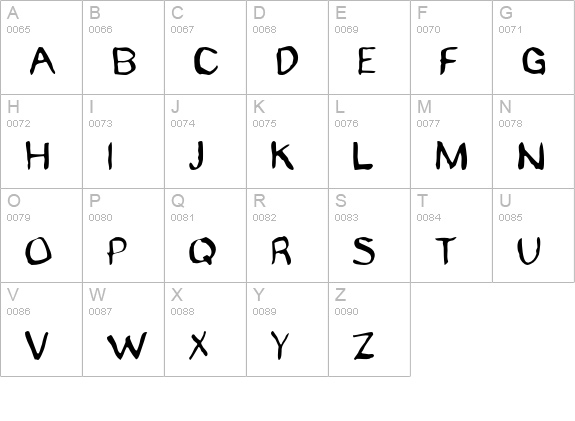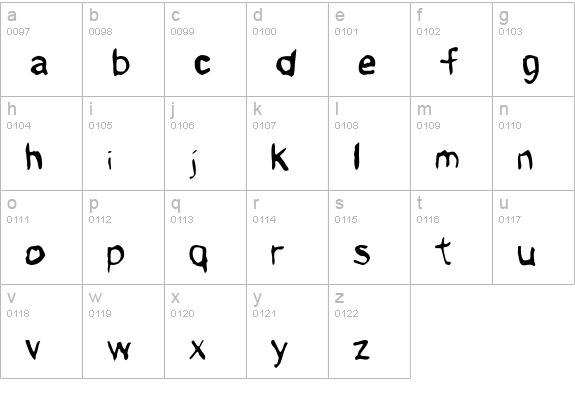
Gritzpop Font Details
Introducing Gritzpop font, a quirky and playful typeface that will add a touch of whimsy to your design projects. With its unique combination of bold lines and playful curves, Gritzpop is sure to make a statement. This font is perfect for branding, logos, packaging, and more. The best part? Gritzpop is completely free to download at FontsMarket.com! Whether you're a professional designer or just getting started, this font is a must-have in your collection. Stand out from the crowd and let Gritzpop bring your designs to life. Download it today and let your creativity soar!